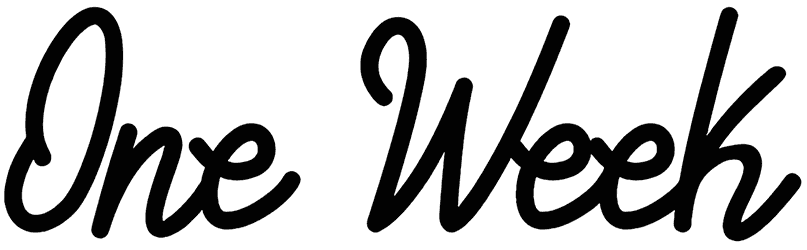
One Week Font
Some fonts, like One Week, have a modern form that instantly catches your eye. This script font’s letters are not entirely strict but seem friendly to the viewers. They have soft edges with a curly shape, sending a pleas…
Some fonts, like One Week, have a modern form that instantly catches your eye. This script font’s letters are not entirely strict but seem friendly to the viewers.
They have soft edges with a curly shape, sending a pleasant vibe. You may use the One Week font on several occasions, such as on postcards, advertisements, and posters. This well-designed font has a curvy tail, making it popular and entertaining to your audience. So download it to express your feelings.